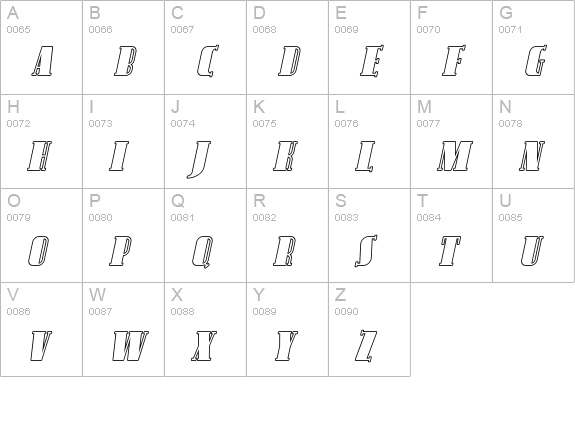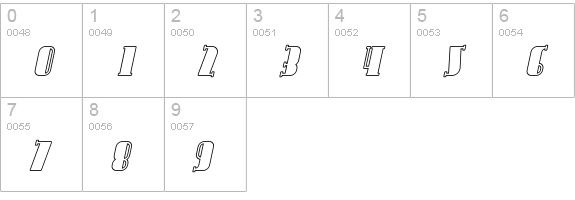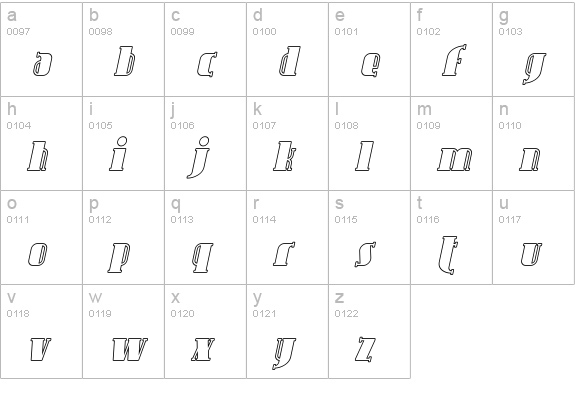
Avondale Outline Italic is a distinctive, italic variant in the Avondale typeface family \xE2\x80\x94 well suited to design and typography projects.
Avondale Outline Italic font is a sleek and modern typeface that adds a touch of elegance to any design project. Its unique combination of clean lines and stylish curves makes it perfect for creating eye-catching headings, logos, and other graphic elements. The italic style of Avondale Outline adds a dynamic and contemporary feel to your text, making it stand out from the crowd. What's even better is that Avondale Outline Italic font is completely free to download at FontsMarket.com. This means you can add this versatile typeface to your font library without any cost, allowing you to unleash your creativity without breaking the bank. So why wait? Download Avondale Outline Italic font today and elevate your designs to the next level!